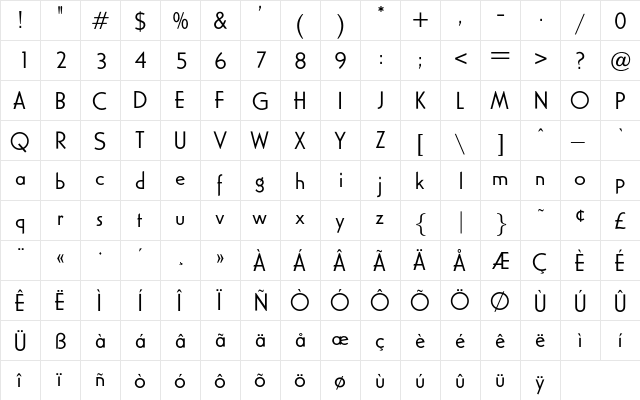
Cassius Regular
Design Context for Cassius Typeface
Cassius is a composed and adaptable typeface that performs quietly and consistently across a wide range of design contexts.